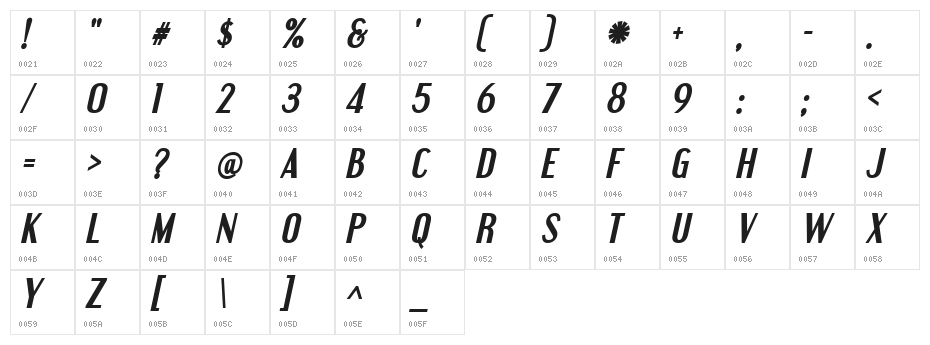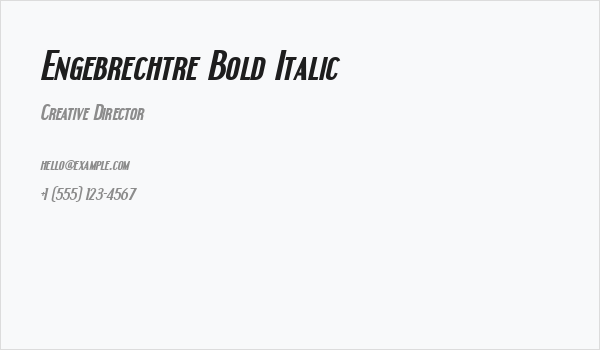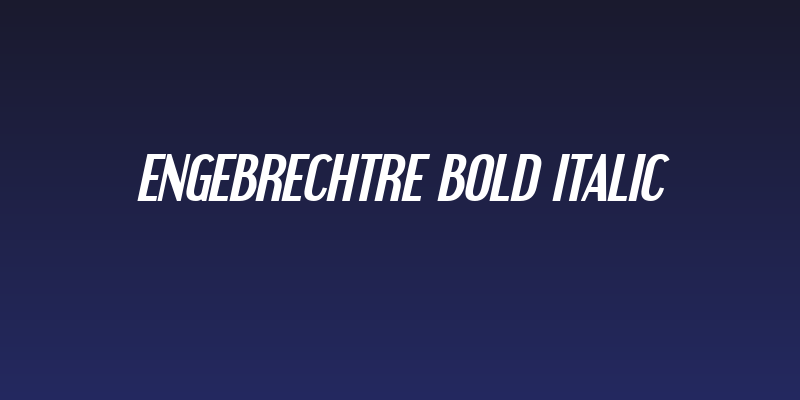
Engebrechtre Bold Italic Font
Engebrechtre Bold Italic Description
This font exhibits a bold and italicized style, characterized by its strong, slanted letterforms that convey a sense of dynamism and urgency. The strokes are thick and consistent, providing a robust appearance that stands out prominently. The characters are slightly condensed, enhancing the compactness and making it suitable for impactful headlines. The font maintains a modern aesthetic with clean lines and a sleek design, making it versatile for various applications. Its high contrast in stroke thickness adds to its legibility and visual appeal, ensuring clarity even at smaller sizes.
| Proposed Projects | Ideal for advertising, branding, and editorial design where a strong, modern impact is needed. |